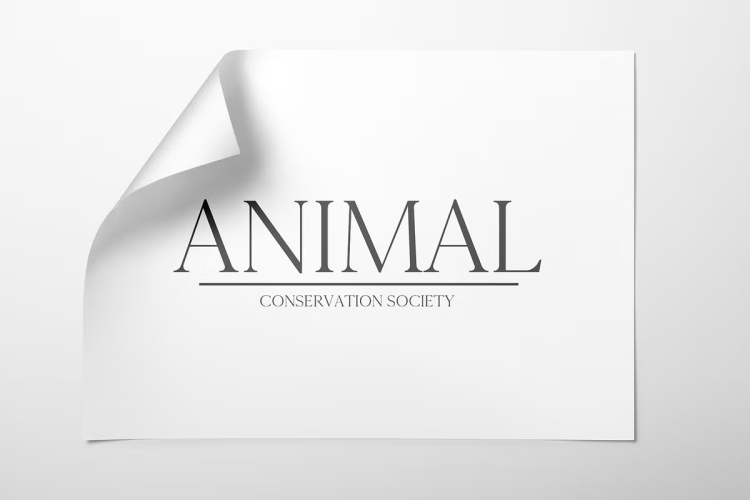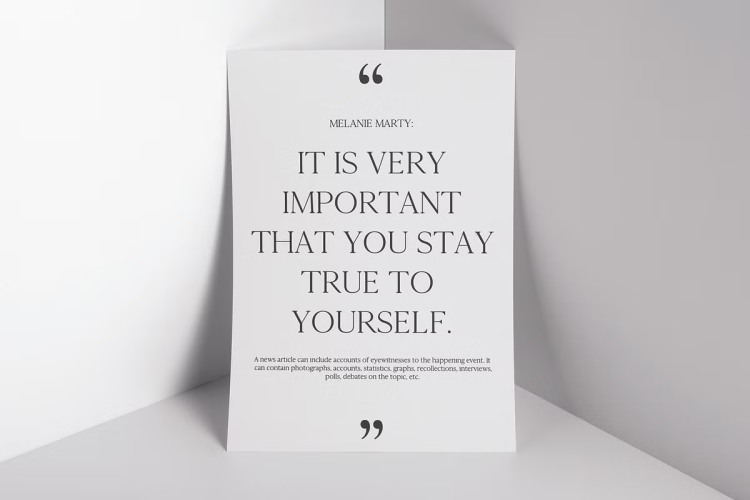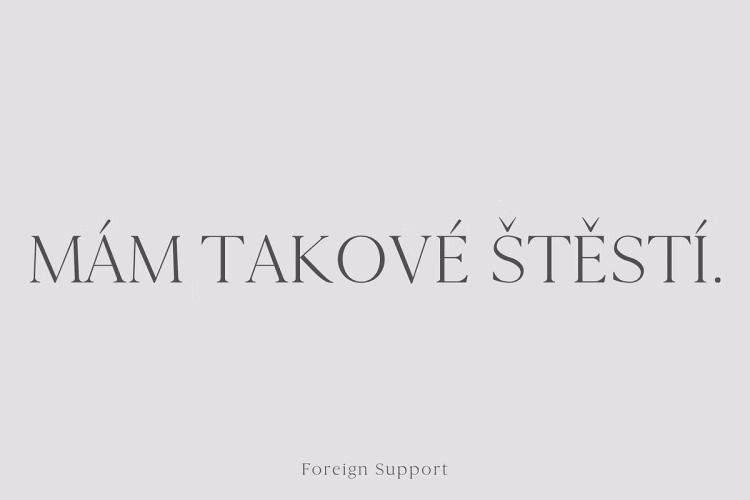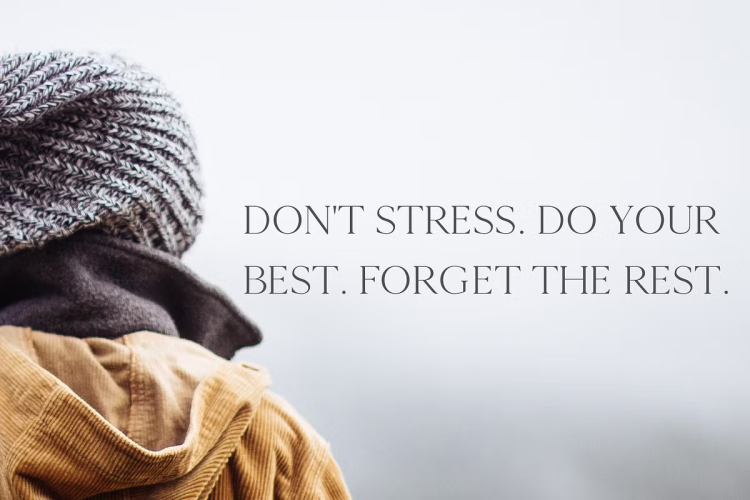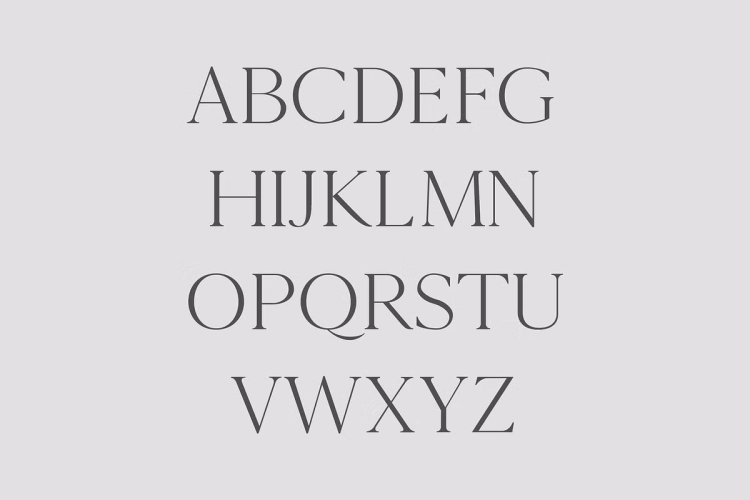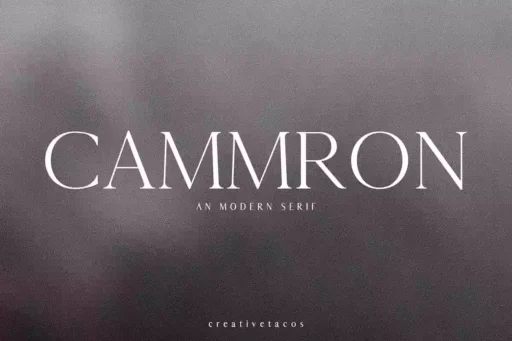
Cammron Font
Cammron is a modern and elegant serif font family by Creativetacos that is suitable for any project that wants to add elegance. It has all general symbols, including special characters and those of other languages, thus being very practical and universal. This font looks great with script, signature, or handwriting fonts and therefore it is ideal for numerous creative designs.
In headlines, titles, magazine headings, logos, advertisements, posters, and quotes, Cammron is a pro. It is an ideal choice to beautify website design, invitations, packaging, books, and branding, to name a few, giving a classy look to almost any project. For both print and web based projects, this font is a perfect match as it has contemporary and classic qualities to it which are great for branding and campaign advertisement.
Where Cammron Font works best
Cammron Font gives long-form text a classic, trustworthy rhythm — ideal for magazine spreads, annual reports and book interiors.
Pair Cammron Font with generous letter-spacing for wordmarks in fashion, hospitality, wine and jewellery branding.
Use Cammron Font for slide titles in Keynote, PowerPoint or Google Slides to add authority without looking dated.
What is Cammron Font good for?